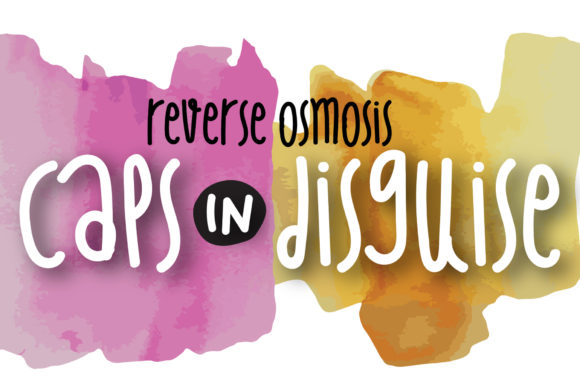
Behold, Reverse Osmosis – a font that's as refreshing as a cool glass of water on a hot summer day!
This enchanting script font, crafted with love by pointsandpicas, will quench your thirst for captivating designs. Its sweet and friendly handwritten style will dance across your digital canvases, leaving an unforgettable impression on your audience.
With Reverse Osmosis, you'll embark on a creative journey where limitations dissolve. Its natural and unique flair invites you to explore a limitless world of possibilities. From elegant logos to heartwarming invitations, this font will add a touch of charm to every project you set your heart on.
So, why wait? Dive into the refreshing waters of Reverse Osmosis today and let your creativity flow!